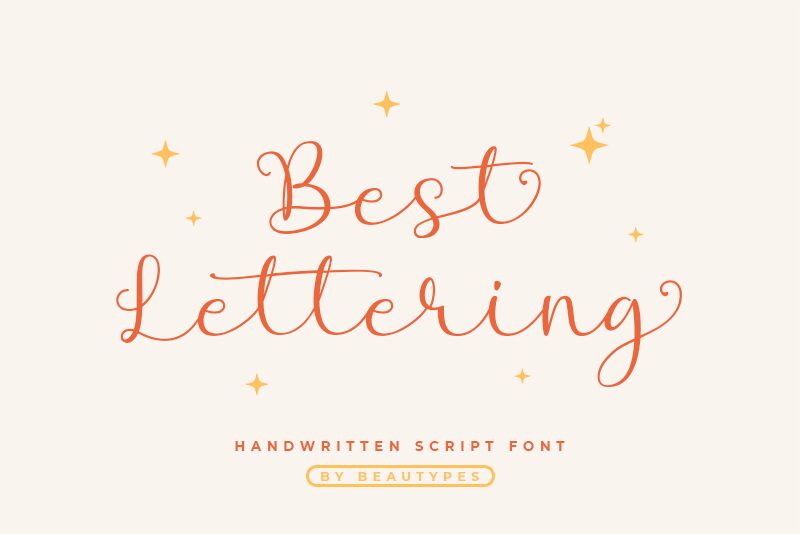
BestLettering
Best Lettering, designed by Beautypes, is a calligraphy font that exudes elegance and lightness. Its delicate strokes and flowing ligatures evoke the timeless beauty of handcrafted artistry, making it an ideal choice for projects that require a touch of sophistication. The fluid continuity of its characters gives this font an organic feel, as if each word has been personally inscribed with care.
Best Lettering's airy weight adds to its aesthetic appeal, ensuring that it stands out with grace rather than density. This makes it perfect for formal invitations, branding materials, and literary works where a personal touch is paramount. Its versatility extends to digital platforms too, where it can add a humanistic flair to websites or social media graphics. For creators seeking an artistic font with both charm and readability, Best Lettering brings calligraphic finesse to the table.